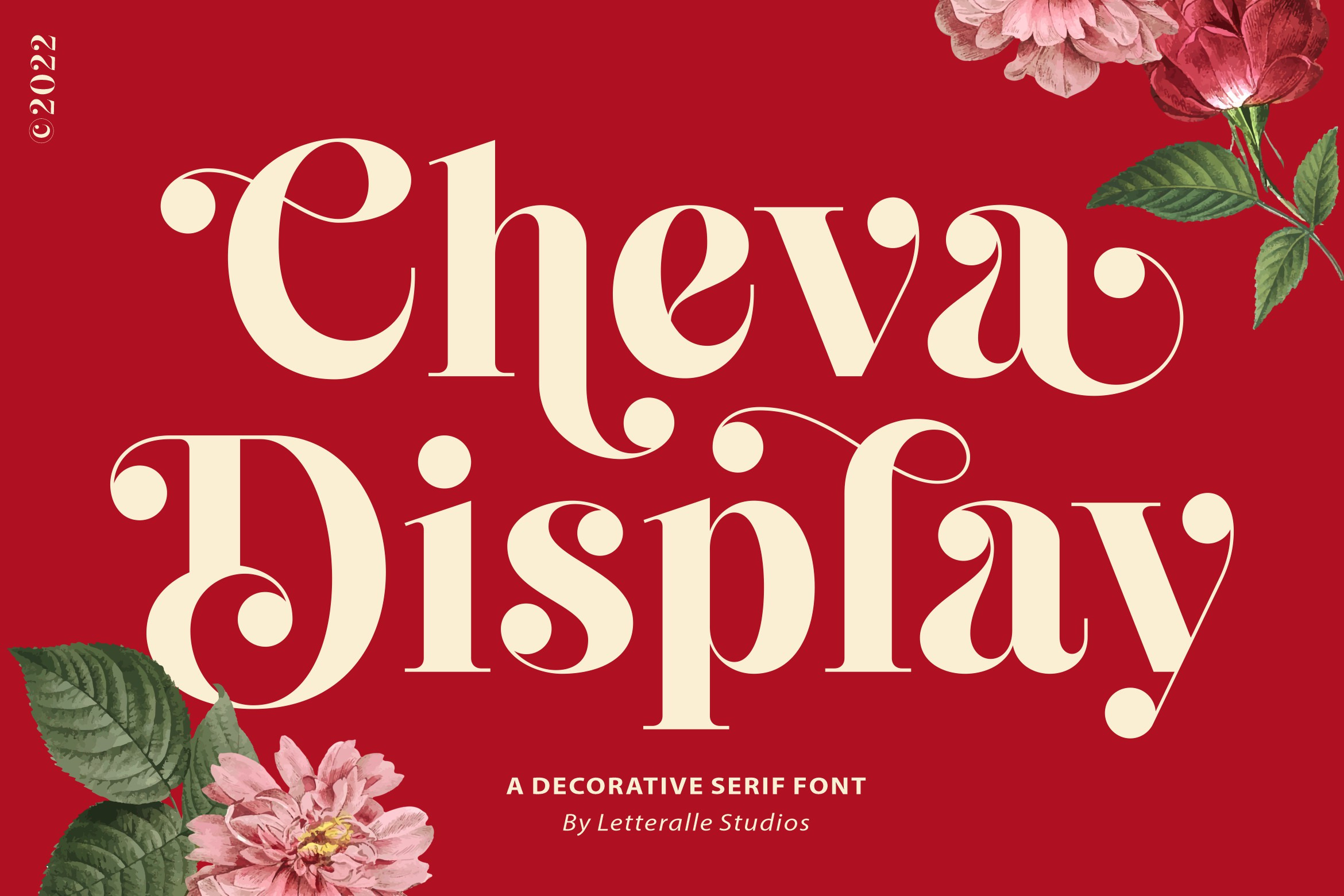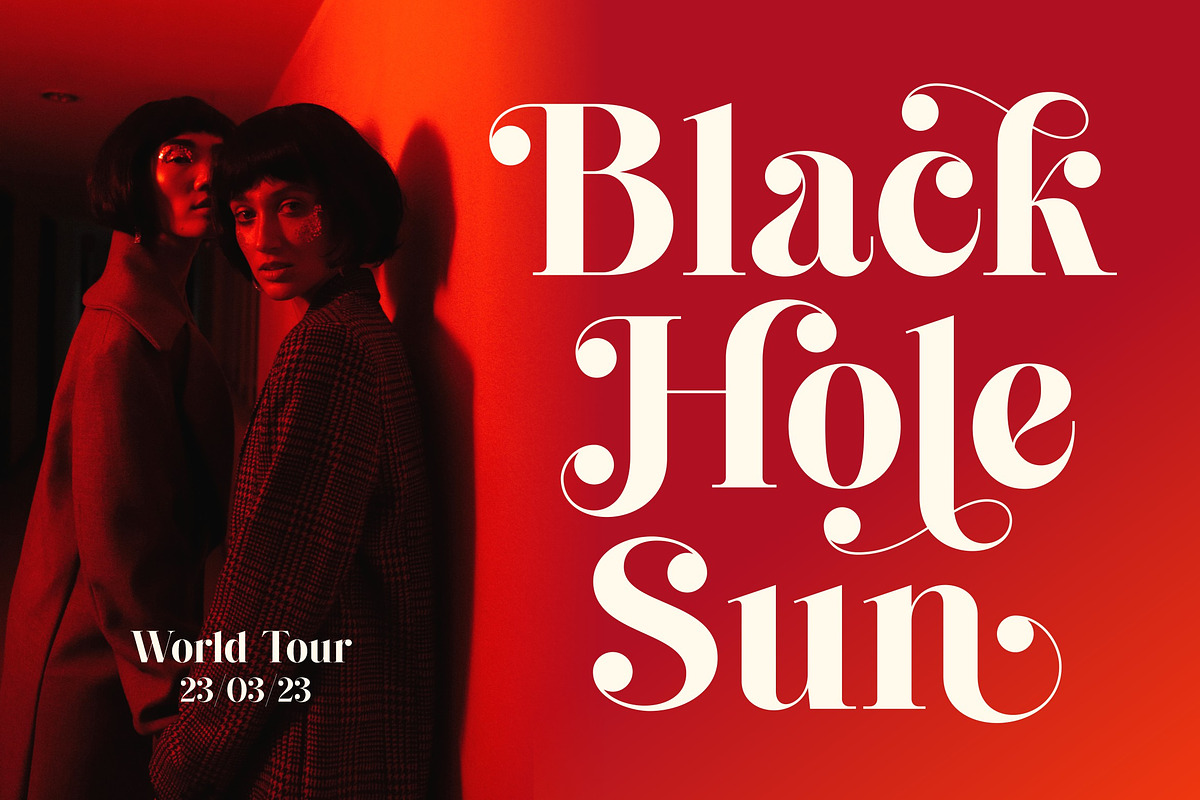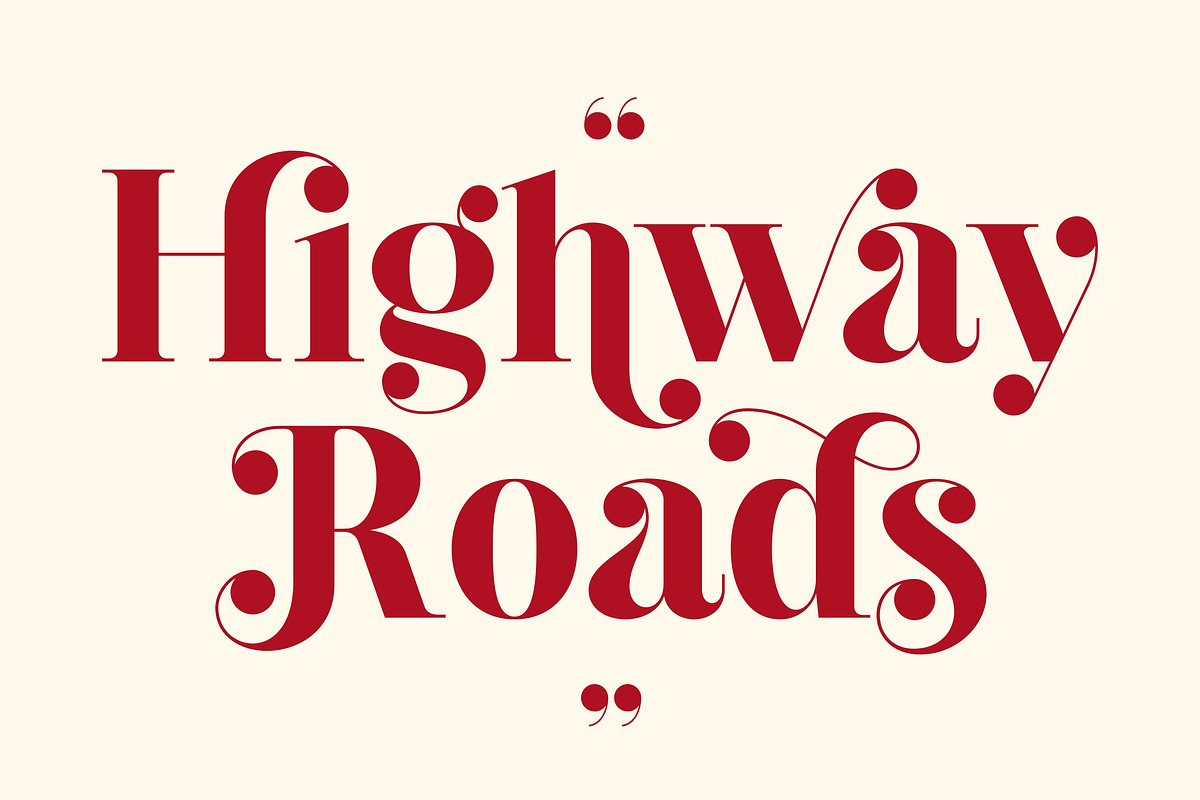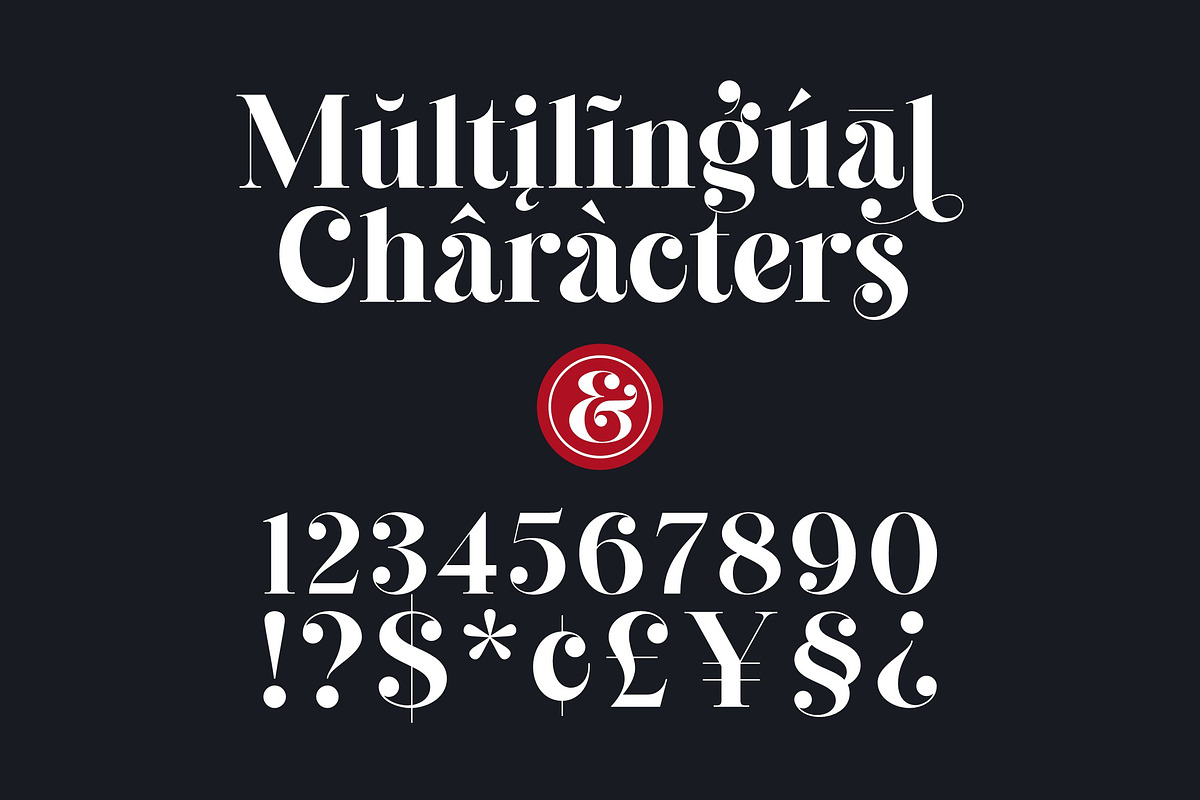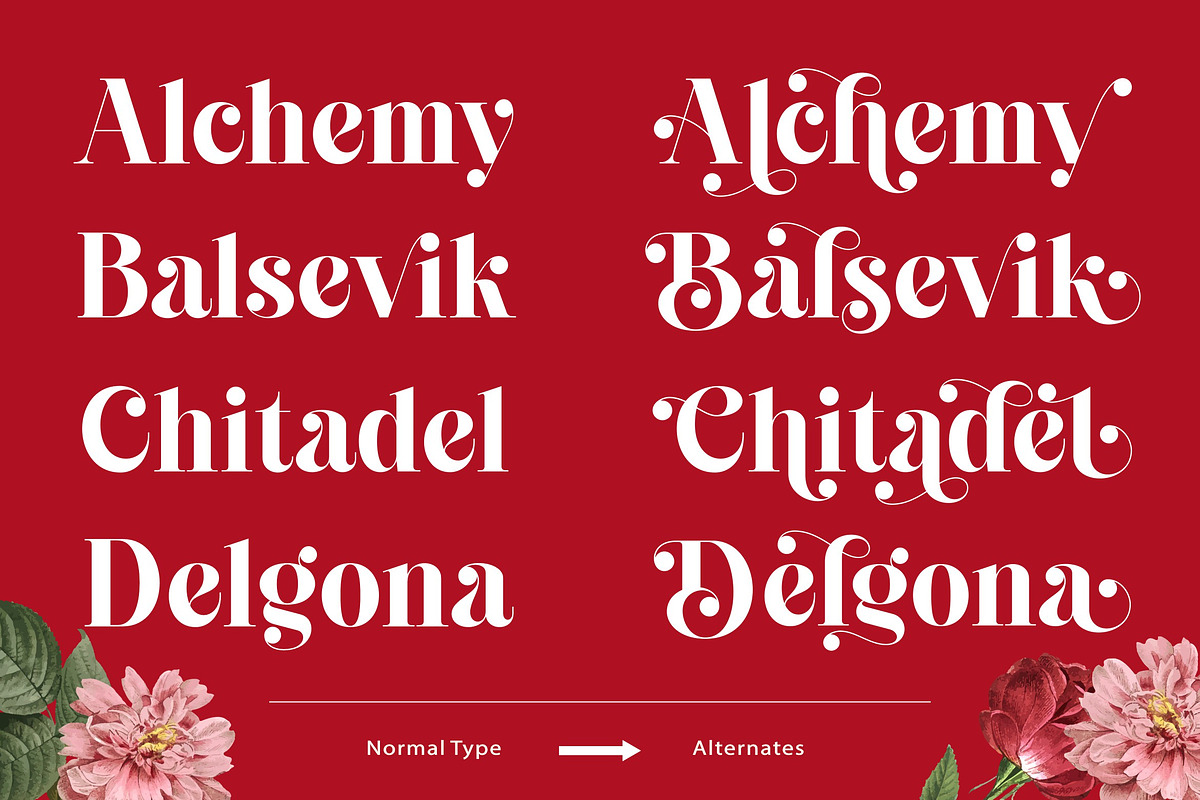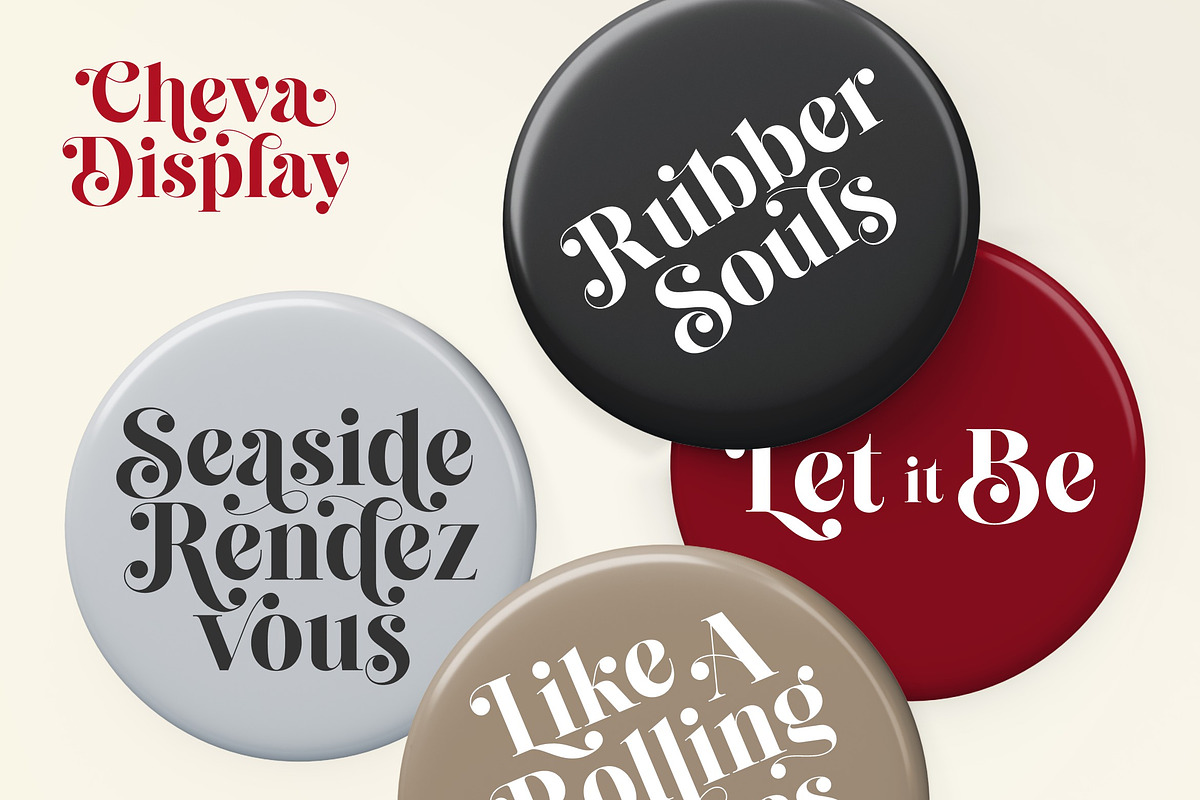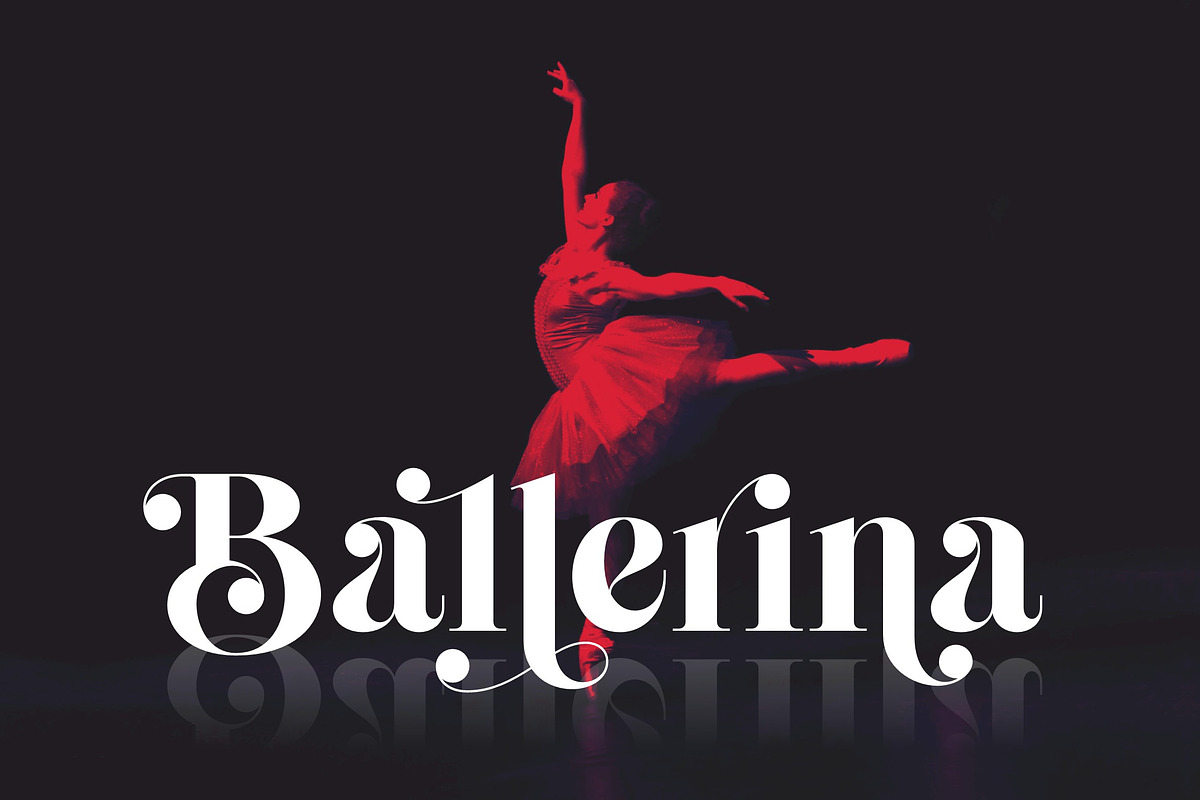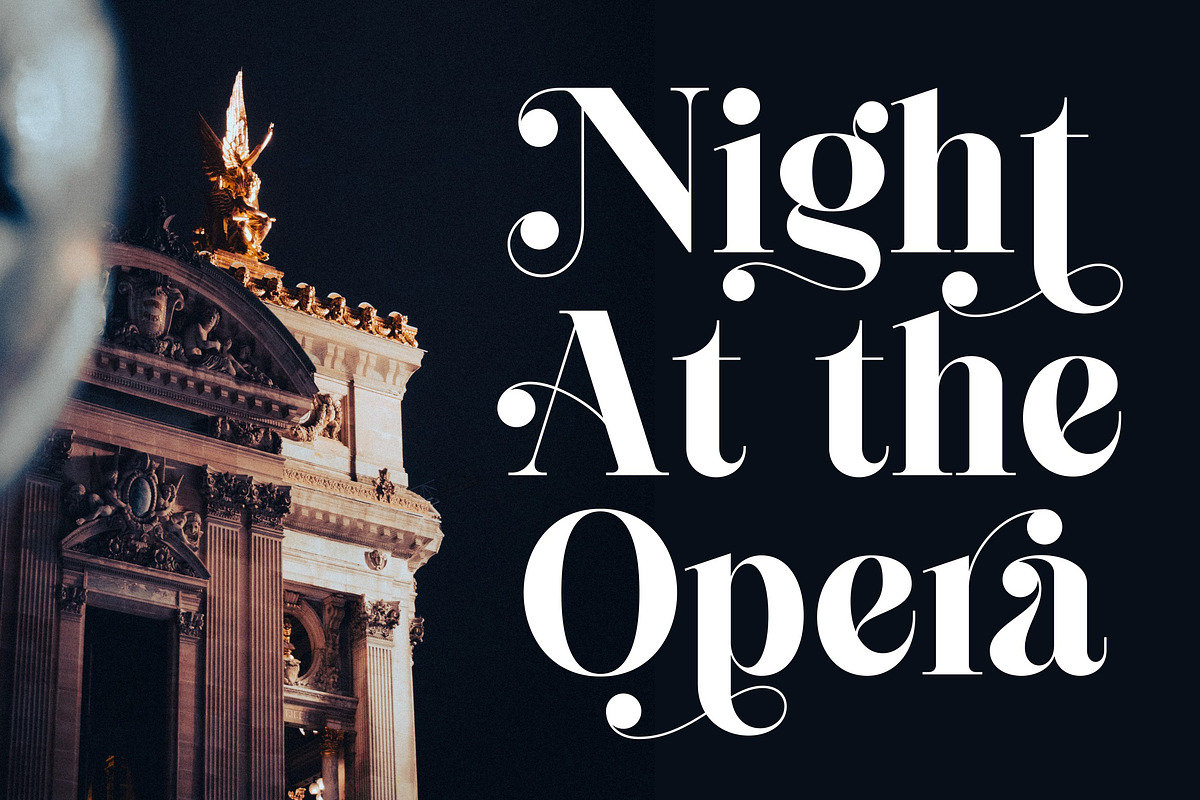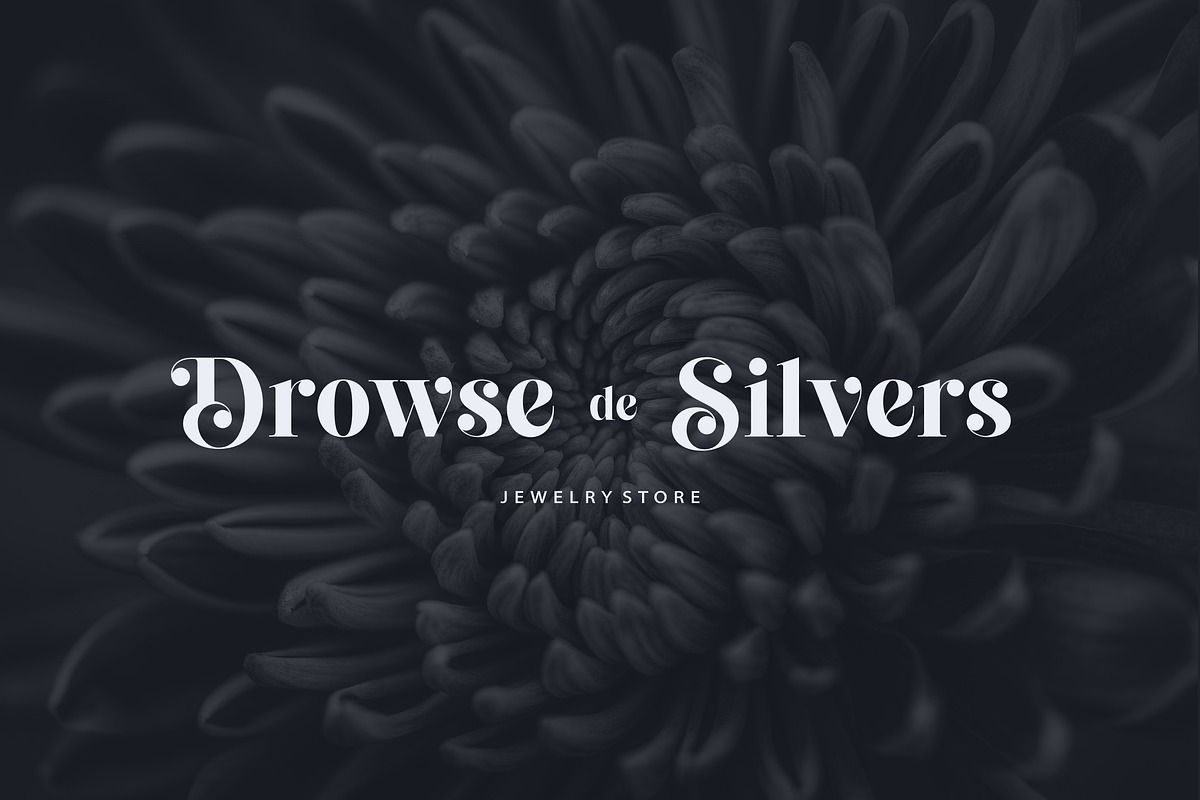
Cheva Display Serif Font
Introducing, Cheva Display! a bold font with a touch of fine curves. Cheva Display brings vintage look as well as modern designs. With a variety of alternative letters and ligatures, it will make your text more unique and interesting.
Cheva Display is a very versatile font, perfect for editorial projects, Logo design, Wedding, Clothing Branding, product packaging, magazine headers, or simply as a stylish text overlay to any background image.
- Full Uppercase & Lowercase Character.
- Alternates & Ligatures.
- Numeral, Punctuation, Multilingual Accents.